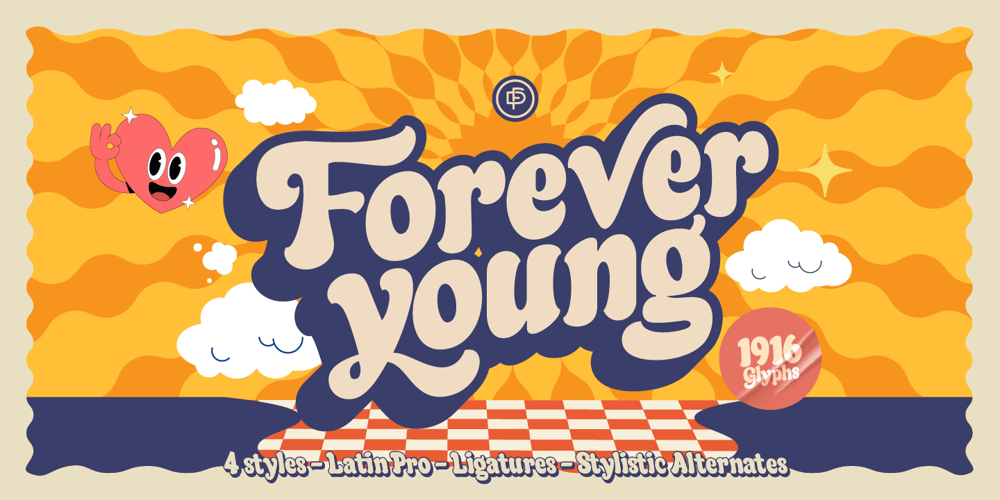
Fd Forever Young
Fd Forever Young font
Fd Forever Young Font Family was designed by Ramandhani Nugraha and published by Fortunes Co. Fd Forever Young contains 4 styles and family package options. Forever Young is A disco 70s retro font is a typeface that captures the bold, flashy, and vibrant style of the disco era, which was popular in the 1970s. These fonts are characterized by their unique design elements that reflect the disco culture. with funky shapes Disco fonts often feature unconventional and geometric shapes, such as curves, swirls, and exaggerated serifs. Retro fonts are widely used in various design projects, branding, posters, and packaging to create a sense of nostalgia or capture the essence of a particular era. They are versatile and can be customized to fit a wide range of creative applications.